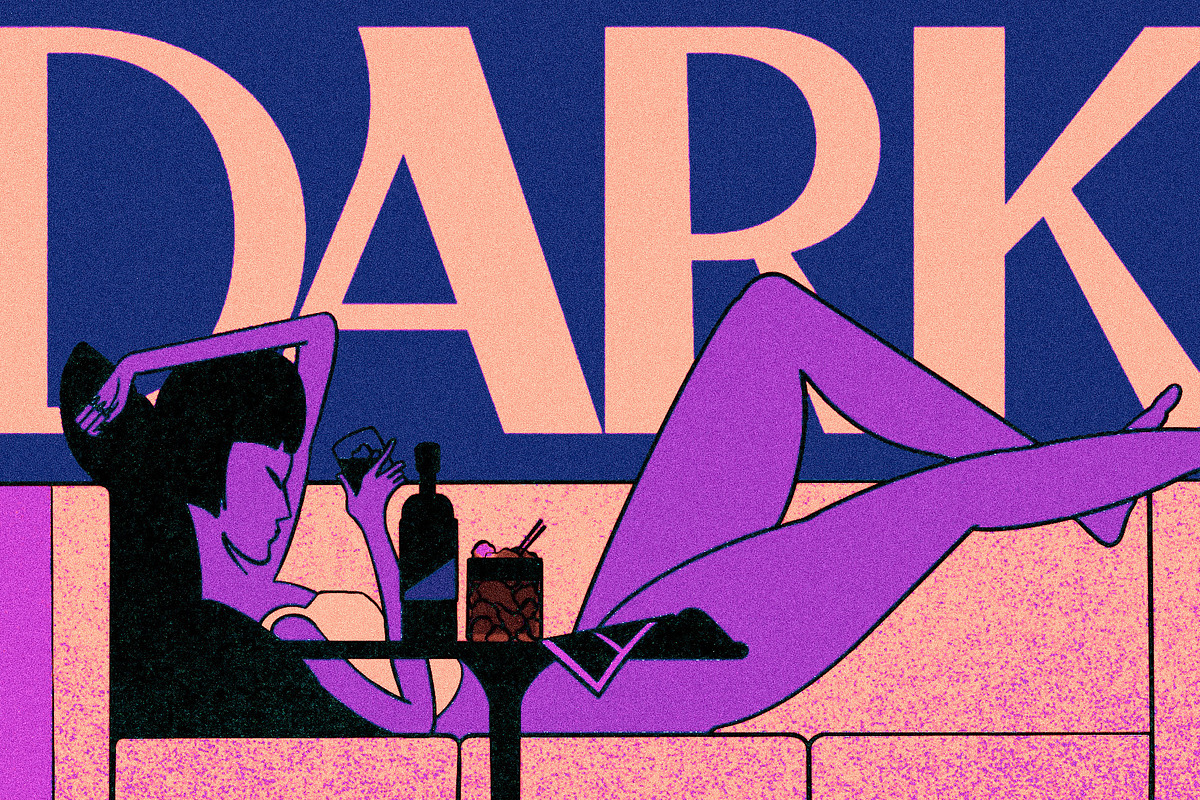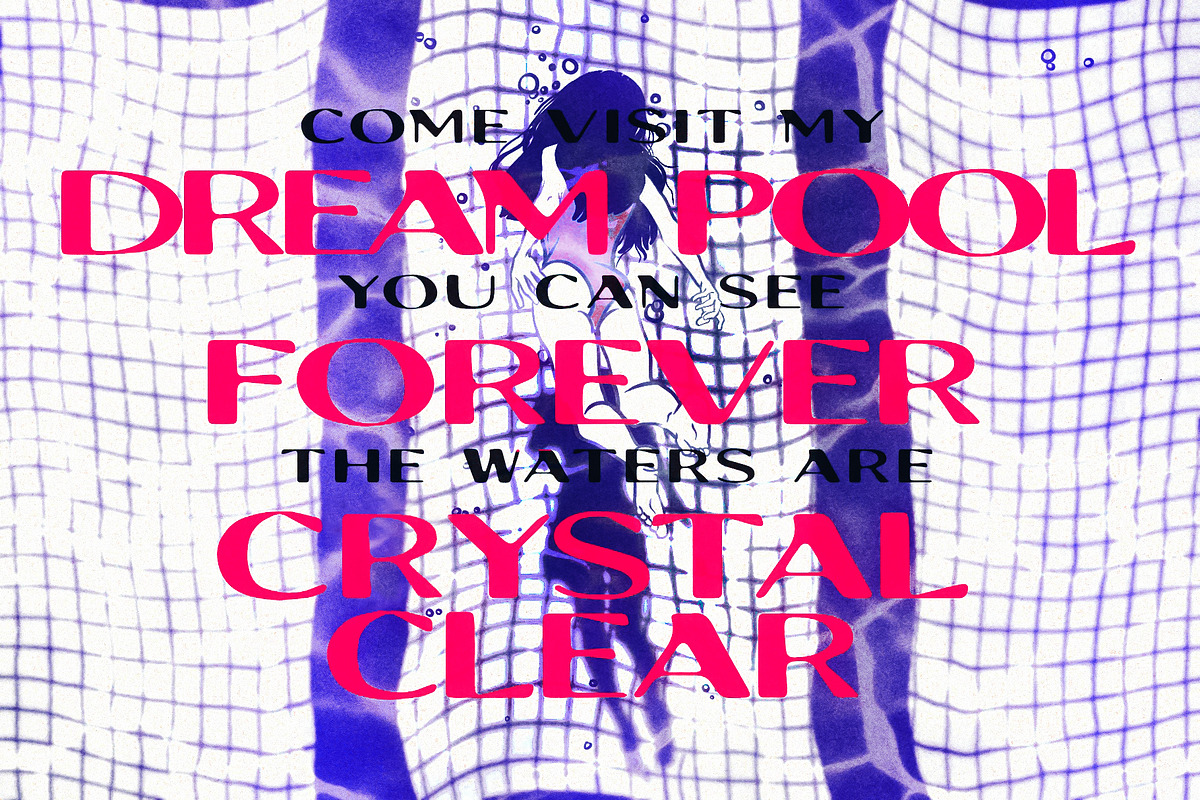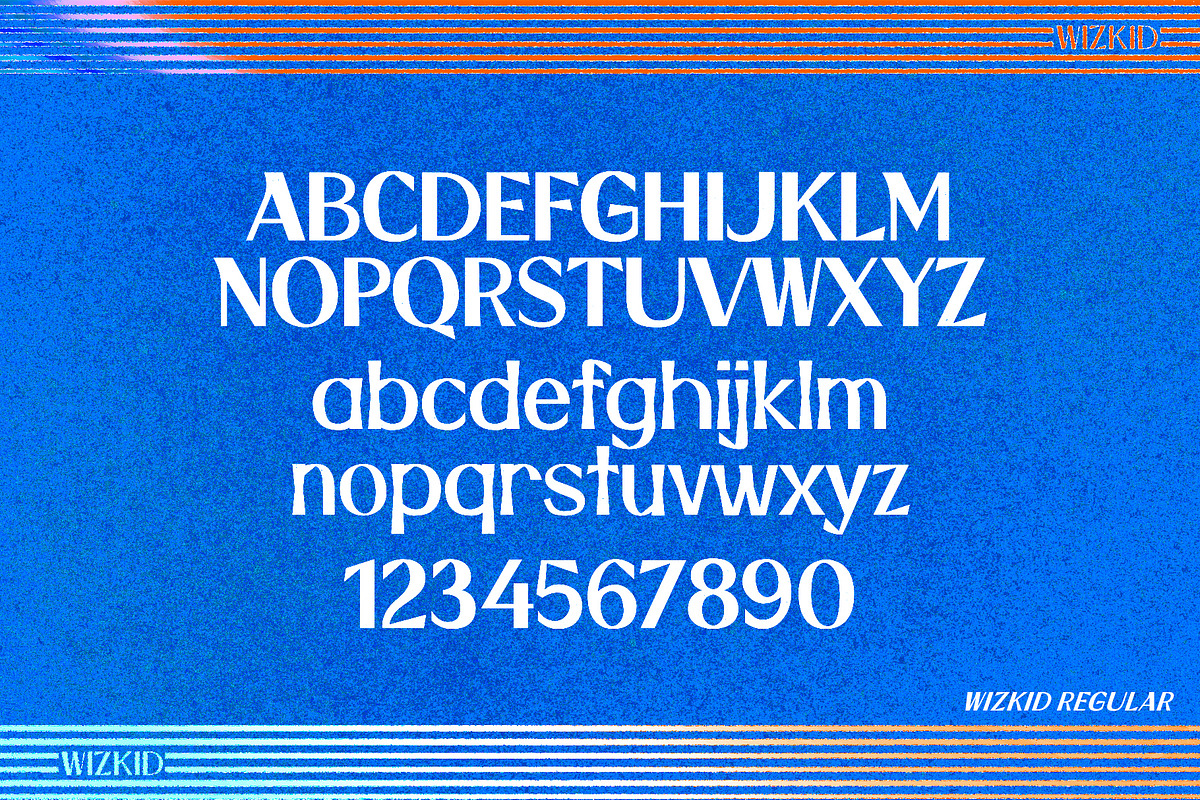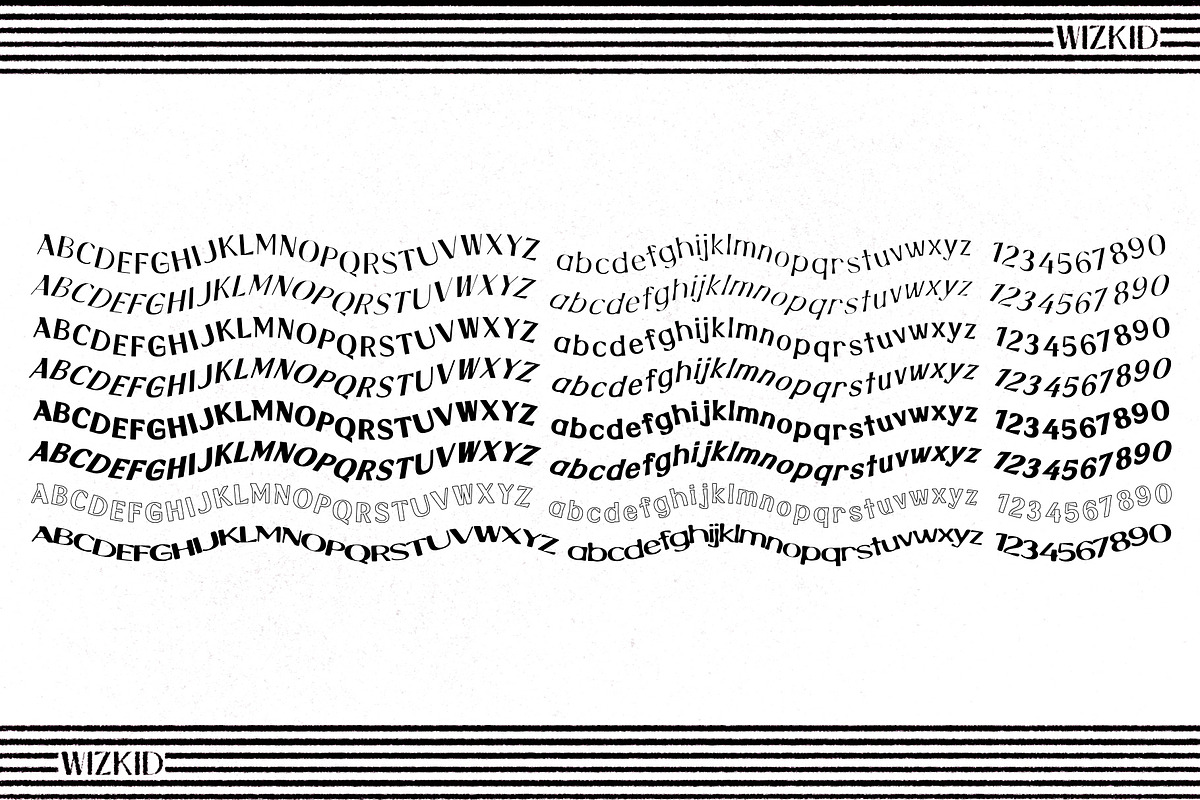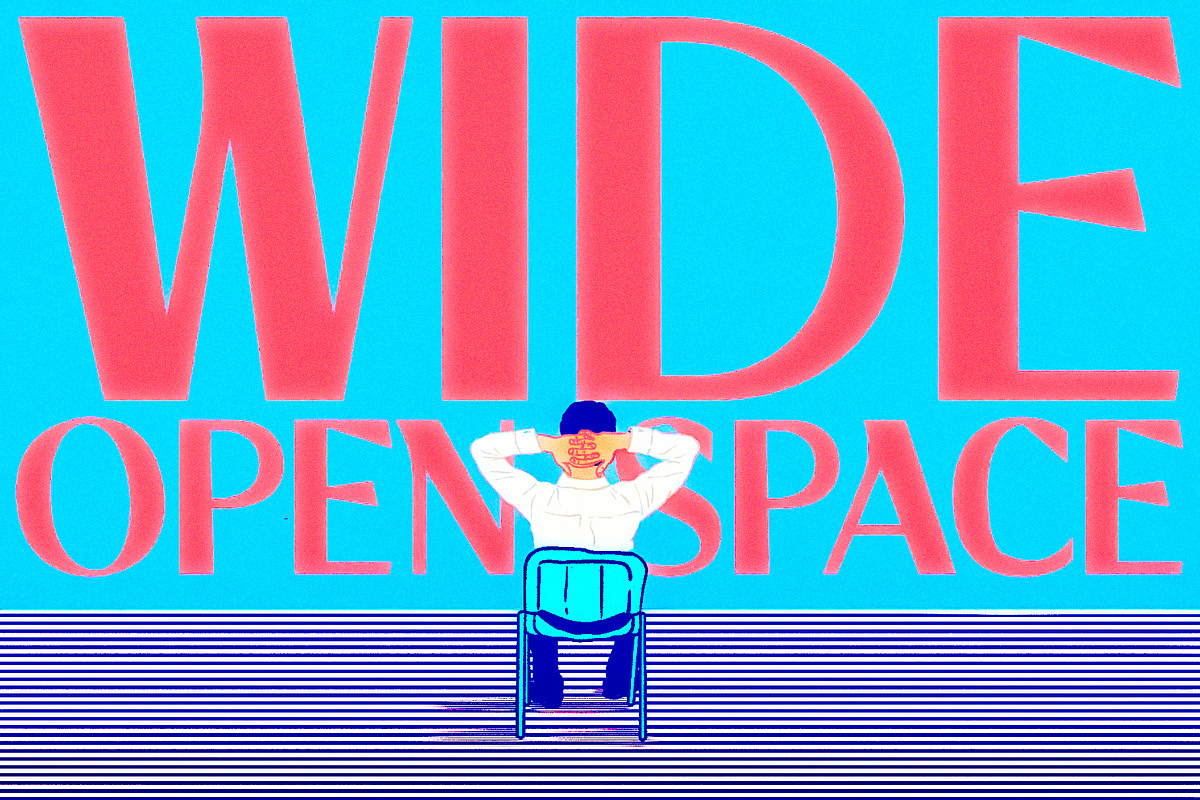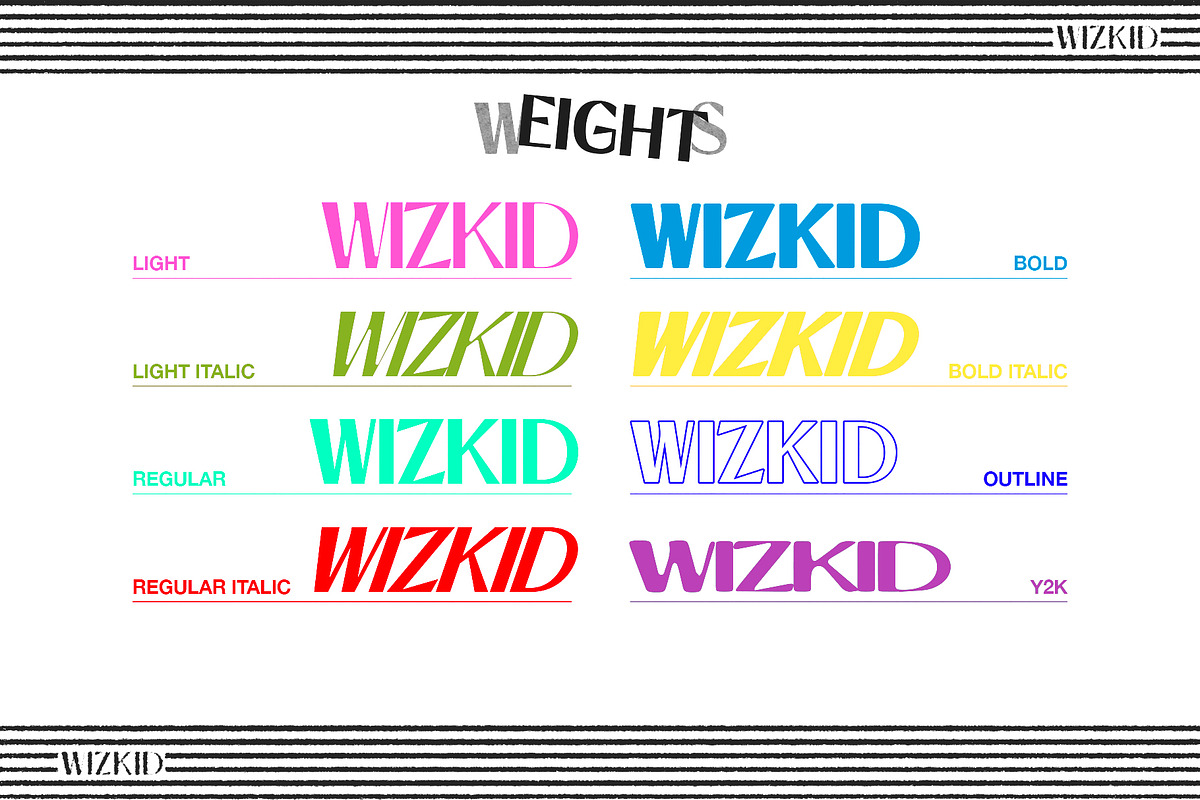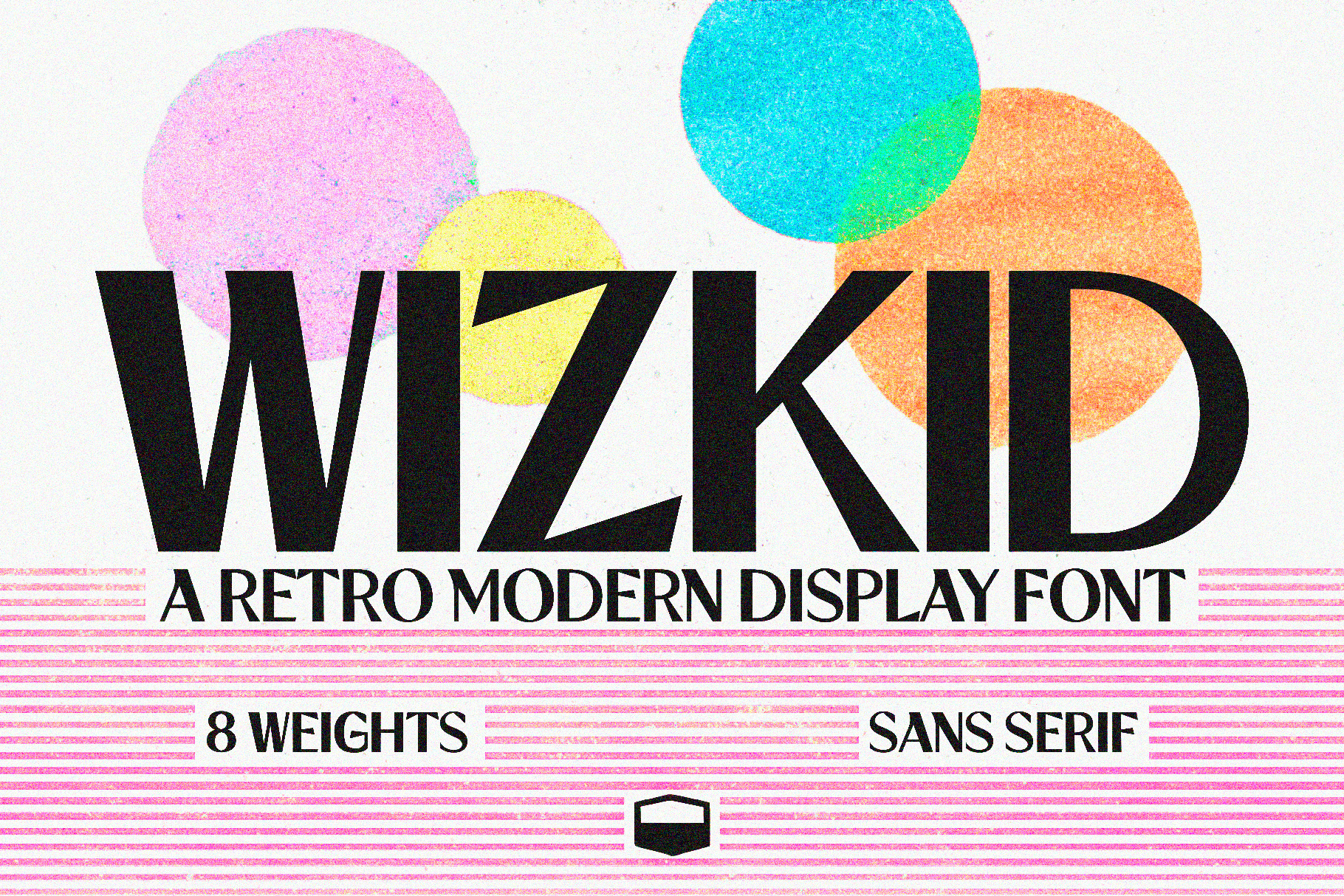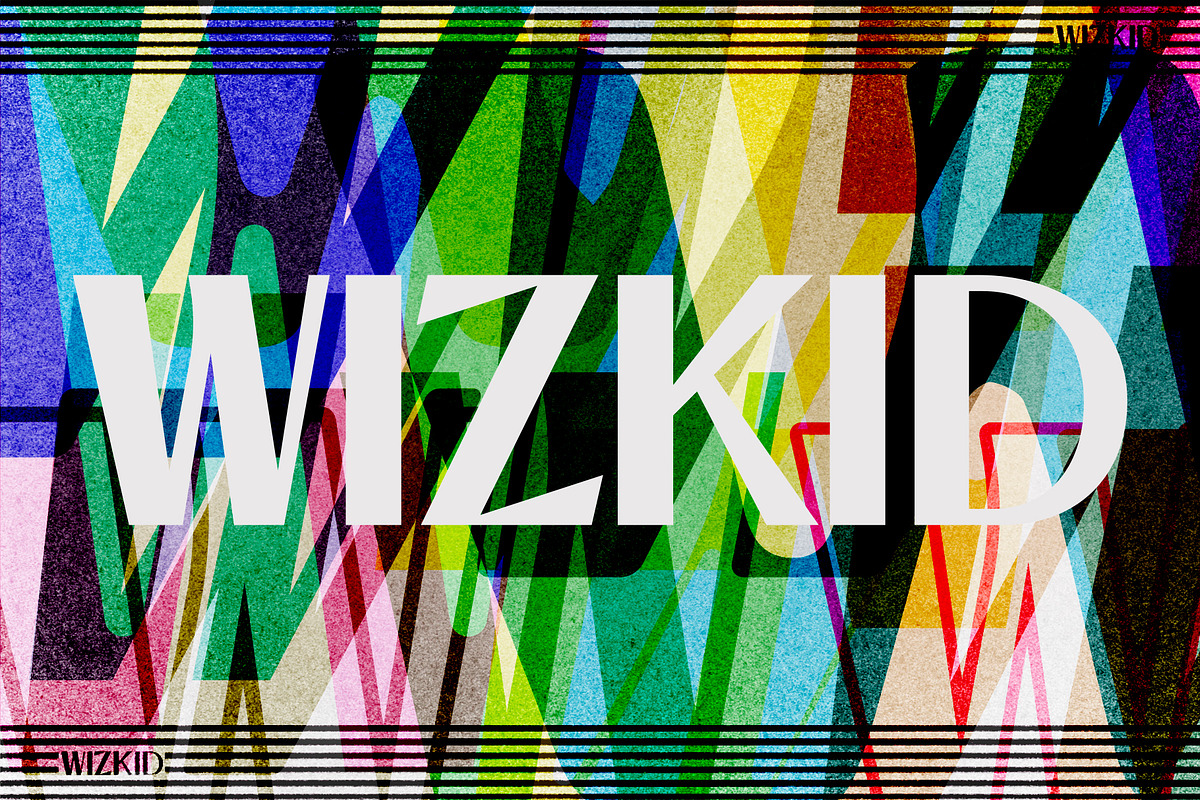
WIZKID | A Retro Modern Display Font
WIZKID Is a Retro Modern Display font built for brilliance. The Wizkid Font Family comes with 8 different weights allowing for plenty of options and design adaptability.
Wizkid was created to be your go-to font whenever you're in a bind you can't kern your way out of.
Wizkid is modern, minimal, retro, versatile, and practical.
Wizkid doesn't require lots of extra kerning or fuss to get a good look.
Wizkid is dense and can cover ground or direct space while maintaining a sleek appearance.
Wizkid does what a good font is meant to do, it commands attention at a glance.